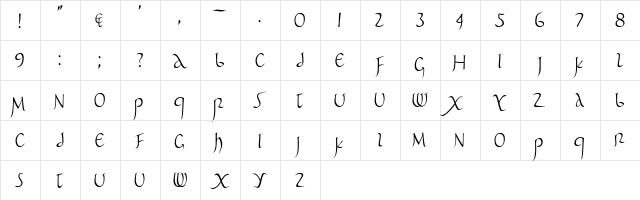
Pomponianus Medium
Design Context for Pomponianus Typeface
Pomponianus is a composed and adaptable typeface that performs quietly and consistently across a wide range of design contexts.